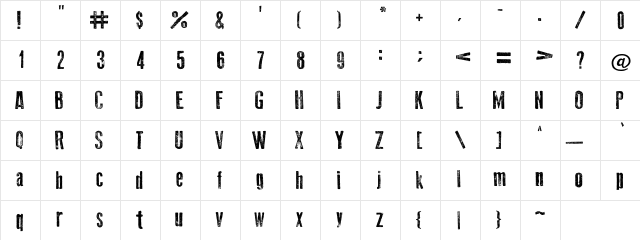
Complete Old Press2012 Galdino Ottennitial release!$'*-0369< Regular glyph index. Displaying only characters natively supported by Old Press2012 Galdino Ottennitial release!$'*-0369< Regular font.
Old Press2012 Galdino Ottennitial release!$'*-0369< is a composed and adaptable typeface that performs quietly and consistently across a wide range of design contexts. Its slender proportions lend an understated elegance to any composition.